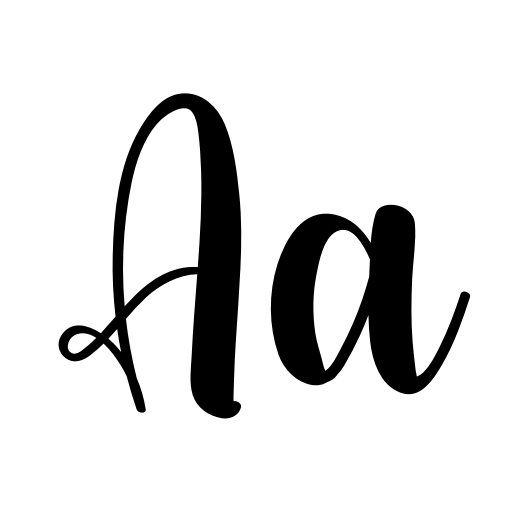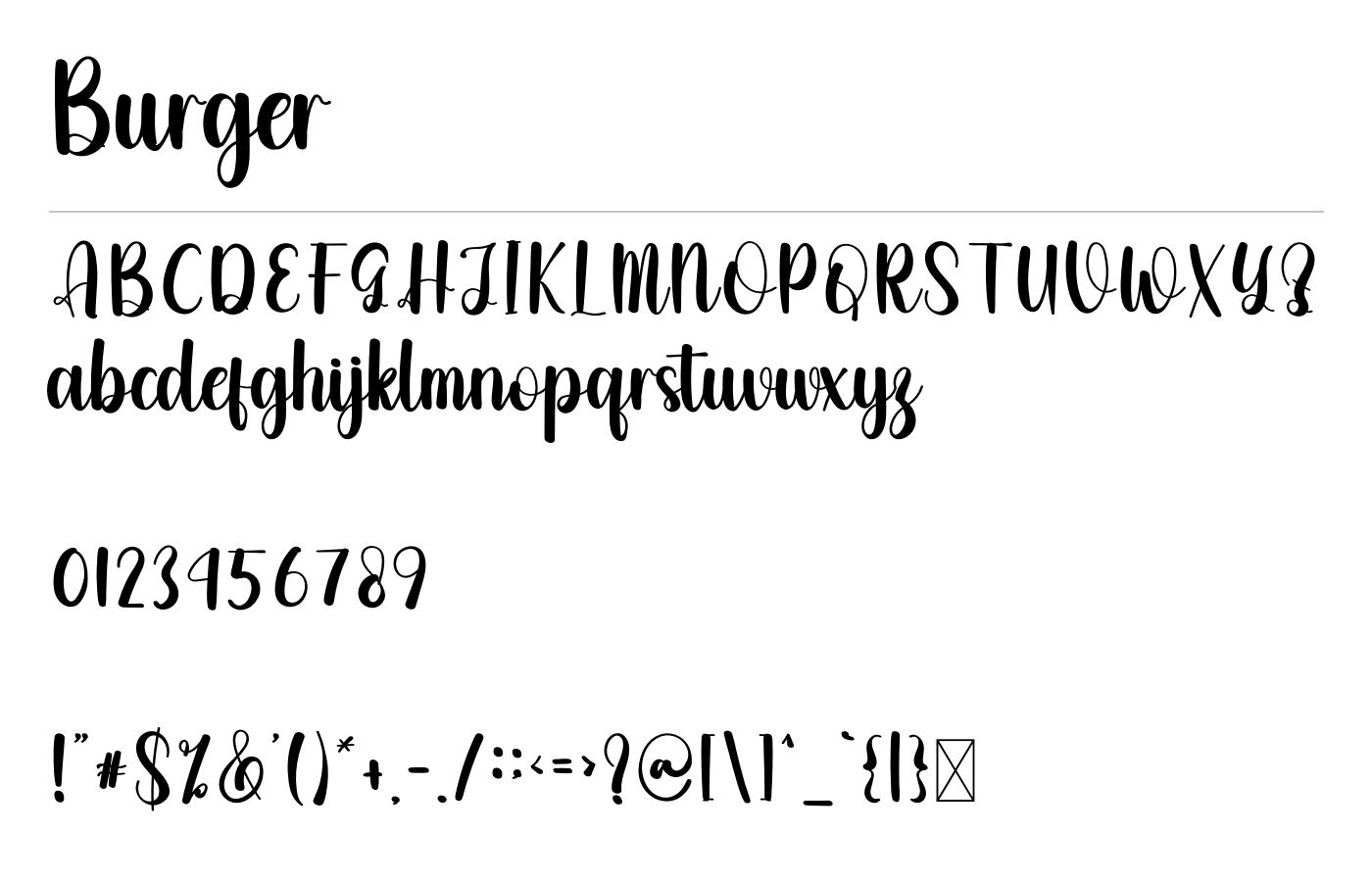
Burger Font is a lively and playful script typeface with a hand-drawn feel, featuring smooth, rounded strokes and charming, whimsical letterforms. Its medium weight and moderate contrast make it approachable and easy to read, perfect for branding, invitations, and casual headlines that want to convey warmth and friendliness. This font works well in creative projects where a personal, stylish touch is needed without sacrificing clarity.
Burger Font